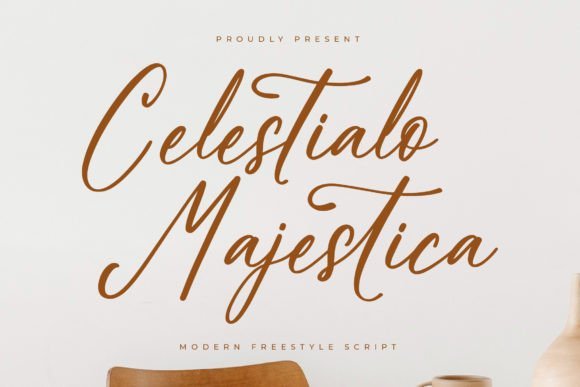
Introduction to Celestialo Majestica Font
Celestialo Majestica – Modern Freestyle Script , from Letterena, is a Luxury Script font, suitable for any projects such as: logos, branding projects, homeware designs, product packaging, mugs, quotes, posters, shopping bags, t-shirts, book covers, name card, invitation cards, greeting cards, label, photography, watermark, special events, and all your other luxury and beautiful projects that need a Luxury Script taste.
Celestialo Majestica – Modern Freestyle Script , from Letterena, is a Luxury Script font, suitable for any projects such as: logos, branding projects, homeware designs, product packaging, mugs, quotes
Key Features of Celestialo Majestica Font
- ✅ High quality design for professional projects
Why Choose Celestialo Majestica Font?
Celestialo Majestica Font offers exceptional quality and versatility, making it a valuable addition to your design toolkit. Whether you’re creating for personal projects or commercial use, Celestialo Majestica Font delivers professional results.